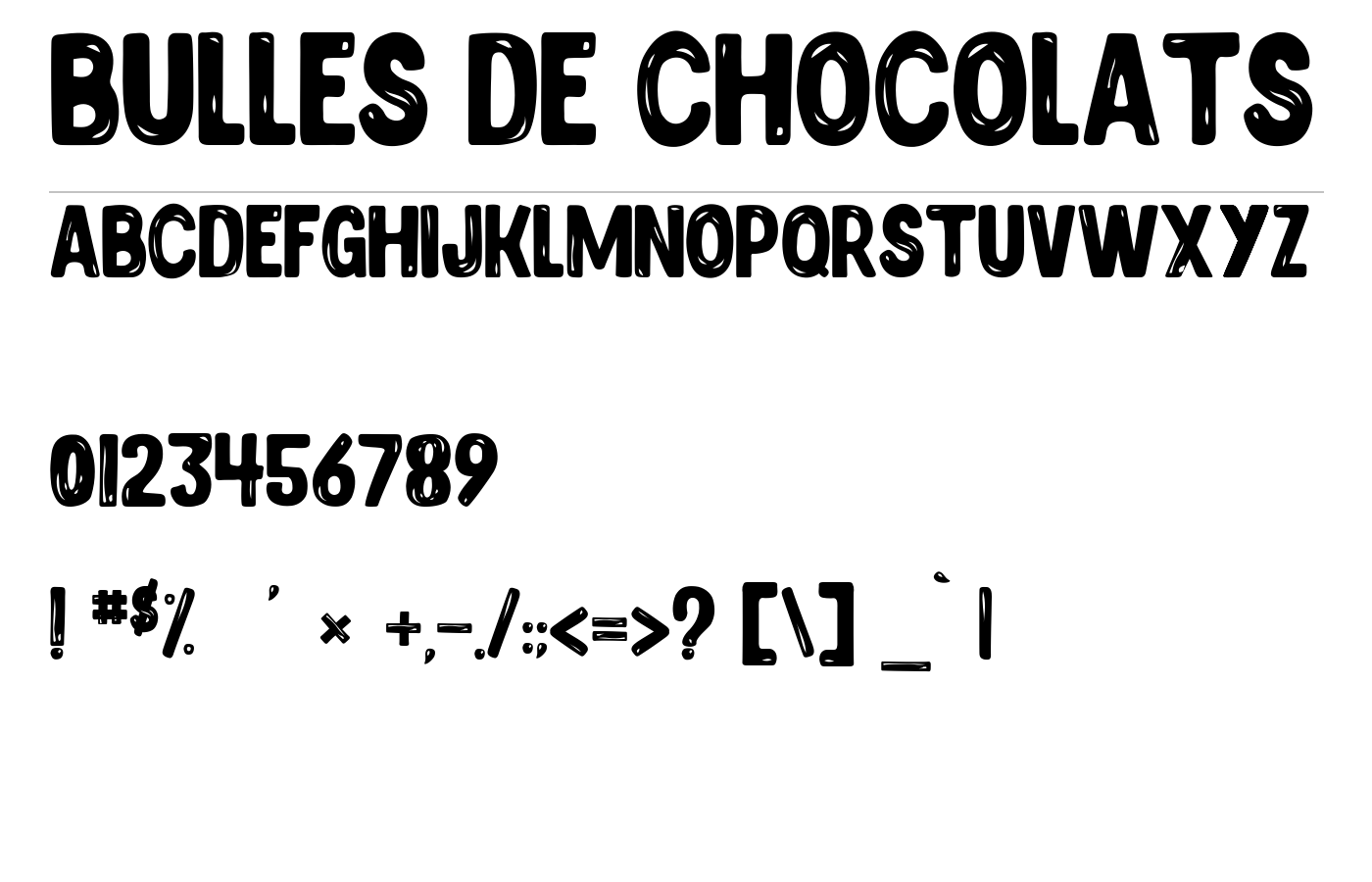
Bullles de Chocolats is a bold, playful sans serif font with a rounded, slightly irregular style that gives it a hand-crafted, organic feel. Its tall, condensed letters feature quirky details and varying stroke thickness, making it perfect for fun, casual branding or eye-catching headlines that want to convey warmth and creativity. This font works well in packaging, posters, and any design aiming for a lively, approachable personality.
BULLES DE CHOCOLATS Font
About BULLES DE CHOCOLATS Font